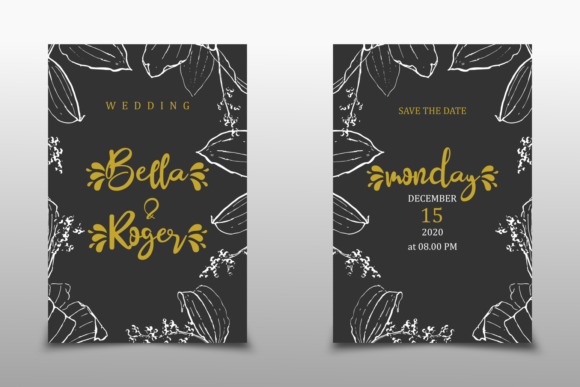
About Yesstea Font
Yesstea is a chic, refined script font that emanates sophistication and elegance. Its stylish alternates and ligatures make this font the perfect match for any project.